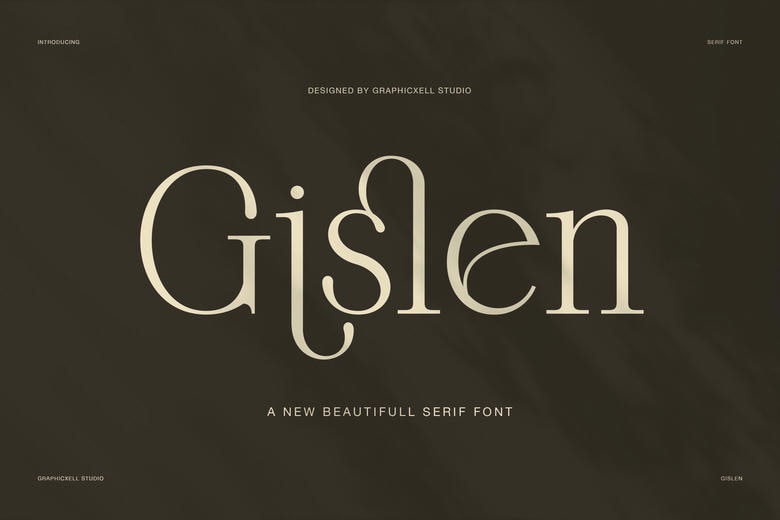
Gislen Font
Gislen Elegant Serif Font is a display serif that combines softness, grace, and a subtle sense of luxury. Its light structure, gentle contrast, and smooth curves give text a calm but expressive appearance.
At first glance, it looks minimal and polished. When you look closer, its alternates and ligatures show a more artistic side. This mix makes Gislen a great choice for designers.
Gislen Serif Font